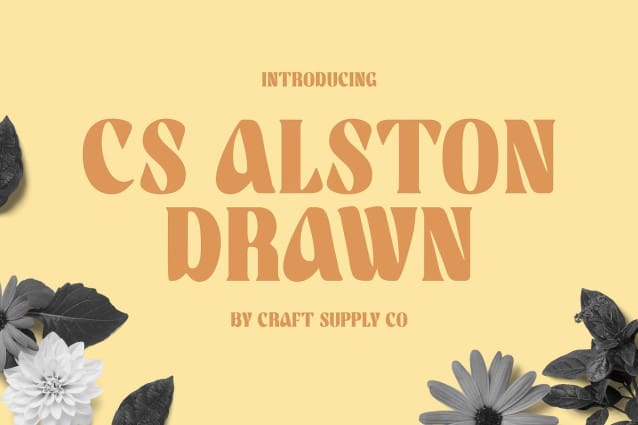
CS Alston Drawn Font
CS Alston Drawn Font is a bold serif font that combines the timeless appeal of classic serif shapes with a unique 90s retro vibe. Its strong, defined lines and bold presence create a powerful visual impact, making it perfect for designs that want to evoke the spirit and energy of the past.
Drawn Effect for Artistic, Lively Details The addition of a drawn effect enhances the font with personalized, handcrafted details, giving each letter a dynamic and lively feel. The rough, textured accents add an organic, authentic touch, which makes the font appear as though it has been meticulously hand-sketched. This artistic quality brings a fresh, creative energy to the classic serif structure, making this drawn font the perfect choice for designs that call for both power and personality.
Strong Visual Impact with Nostalgic Appeal This drawn font offers a strong, unforgettable visual presence while capturing the essence of 90s aesthetics. Its boldness and unique character make it a standout choice for designs aiming to make an impression, whether you’re creating bold posters, vintage branding, or impactful marketing materials. This font is perfect for any project that wants to resonate with the past while keeping a fresh, artistic edge.